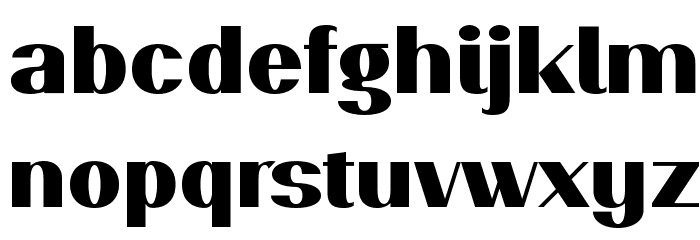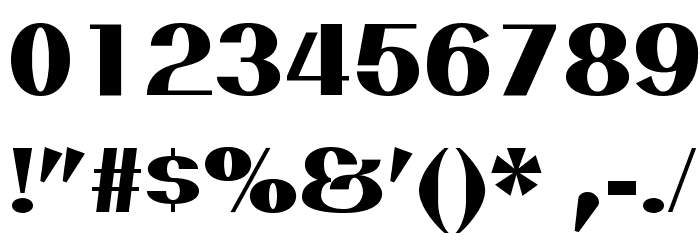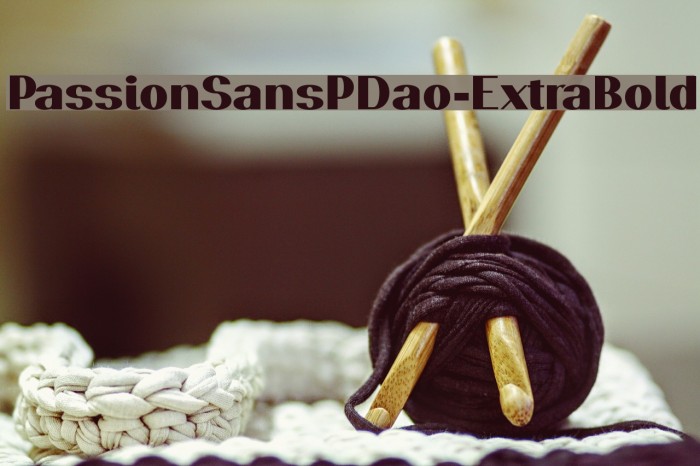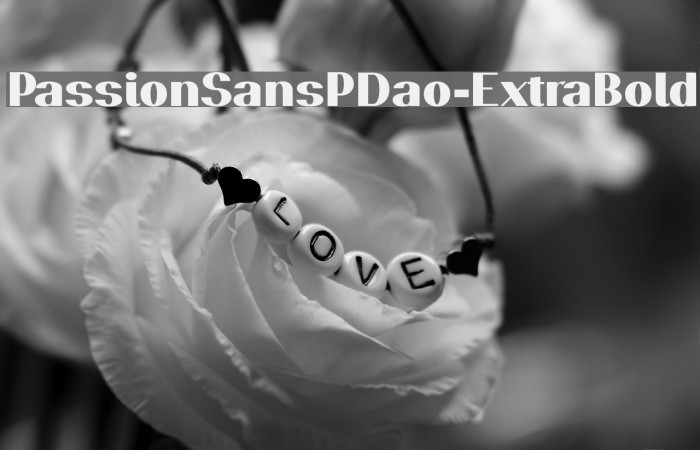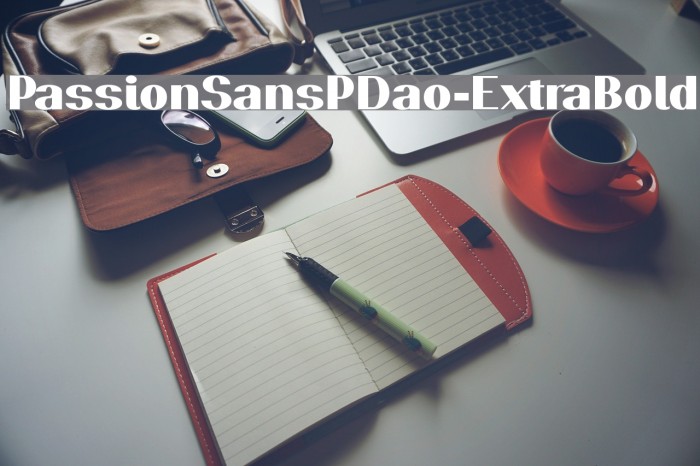
PassionSansPDao-ExtraBold Font
This font exhibits a bold and assertive style with thick strokes and a strong presence. The uppercase letters are robust and commanding, while the lowercase letters maintain a consistent weight, offering a harmonious balance. The numerals are clear and legible, designed to stand out with their boldness. Special characters are crafted with precision, ensuring they complement the overall aesthetic. The font's design is modern and impactful, making it suitable for attention-grabbing headlines and statements.
A bold, modern font with thick strokes and a strong presence.
- Proposed Projects: Ideal for branding, advertising, headlines, and poster design.